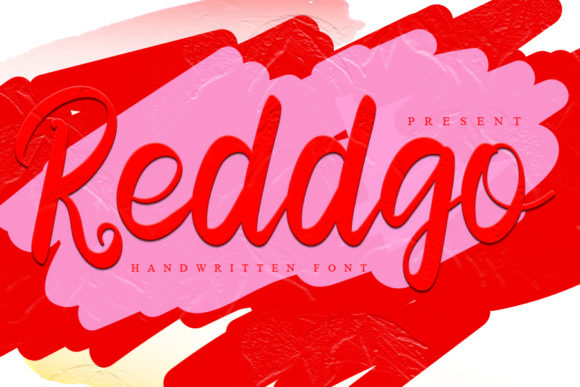
Reddgo Font
About Reddgo Font
Reddgo is a beautiful, tall and versatile script font. Suitable to a wide variety of designs due to its neat and simple style, this font has the potential to become your favorite go-to font, no matter the occasion!